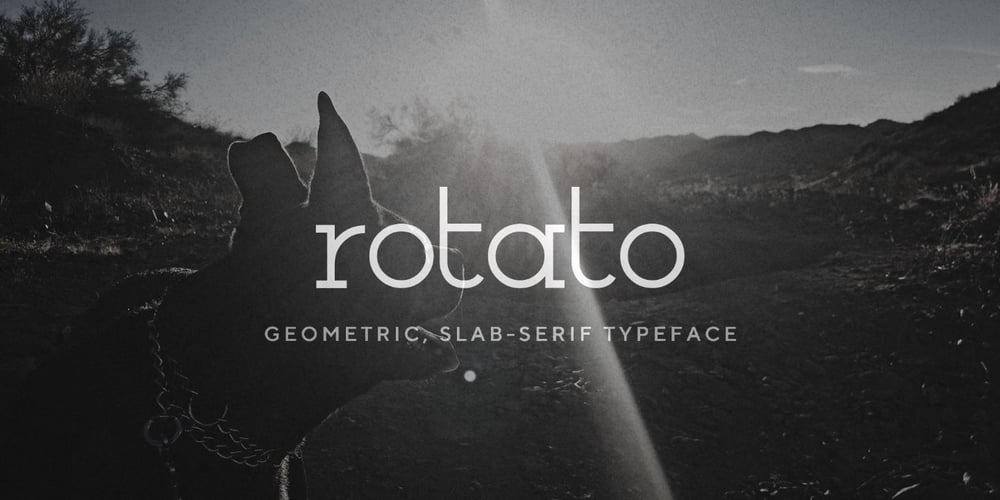
Rotato
Rotato font
Rotato Font Family was designed by Vip Sitaraman and published by VIP Graphics. Rotato contains 3 styles and family package options. Rotato is a lowercase only geometric slab-serif typeface that brings versatility to any design. This minimalist but distinctive font is defined by its crisp composition and modern elements — designed for optimal legibility at all sizes. Out now in all lower case, Rotato leaves an understated impression of elegance & futurism.Currently available in three standard weights, more coming soon: Rotato Light – Clean and classy Rotato Regular – Elegant and elite Rotato Bold – Strong and classic FEATURES Three (3) Font Weights + Italics Numbers and Punctuation New (v2): Extended Ligatures & Nordic Character Set Special Characters Rotato is a dynamic font that works great across various applications: from branding & logos to technology & fashion — whether in a giant heading, or paragraphs of body text. Thanks for checking out Rotato; we hope you enjoy using it.